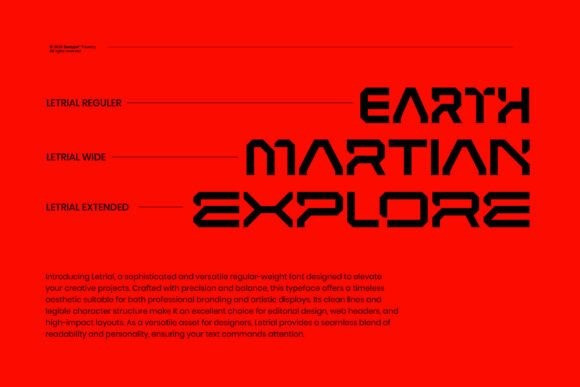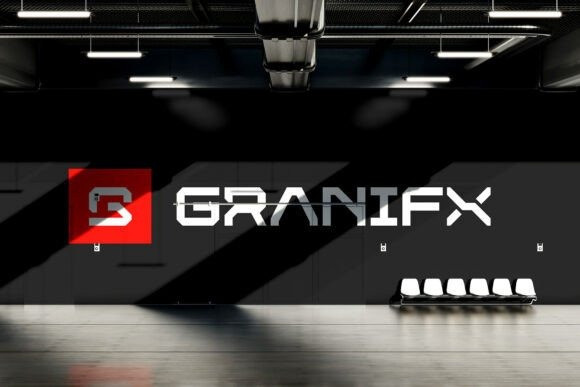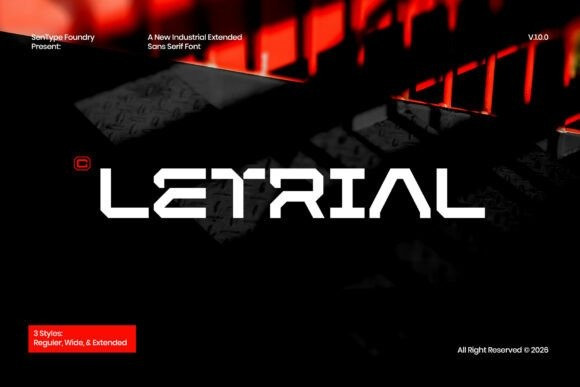
Letrial Font
Letrial Font a commanding industrial extended sans-serif font. Specifically engineered for high-impact visual stability, this cutting-edge typeface comes fully equipped with 3 distinct styles: Regular, Wide, and Extended, offering supreme structural flexibility for complex design grids. Framed over industrial metal diamond plating, stark architectural grids, or moody red-lit backdrops, it delivers an undeniable sense of premium power. This technological masterpiece stands out as an exceptional choice for futuristic sci-fi or cyberpunk video game UI headlines, brutalist streetwear clothing branding, high-octane automotive tech engineering logs, progressive athletic merchandise titles, and electronic music festival promotional banners.